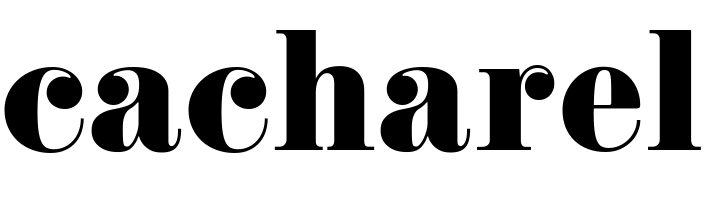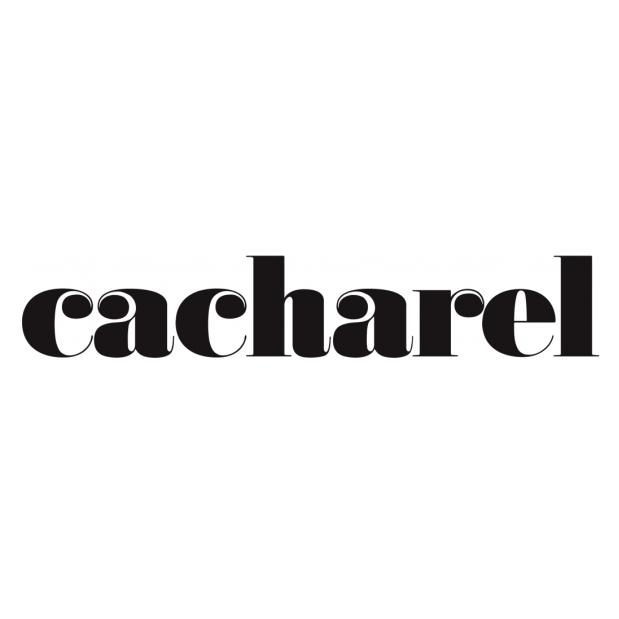
Cacharel Logo Font
ApparelCacharel is a French fashion brand founded in 1962 by Jean Bousquet. Cacharel has a reputation for innovative and trendy designs and has collaborated with well-known fashion designers such as Christian Lacroix and Esteban Cortazar.
Didone, a high contrast thick and thin line font, has been used for the Cacharel logo lettering. A few alternatives that can be used to replicate the lettering are Eloquent JF Pro by Jason Anthony Walcott, Spiffily by Nick’s Fonts, Carousel by Gary Gillot and Pistilli Roman by ClaudeP.